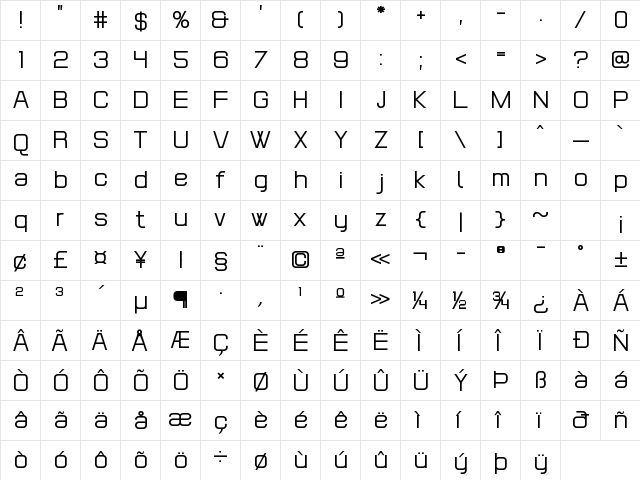
POE Headline Regular
| Foundry | Powerhouse of Entertainment |
| Designer | Daniel Lyons |
Design Context for POE Headline Typeface
POE Headline takes a measured approach to typography — its balanced proportions and neutral character make it a reliable workhorse for both digital and print work.